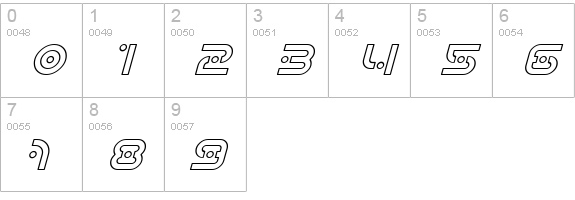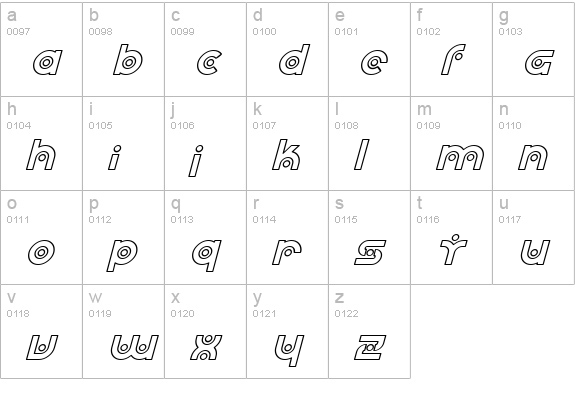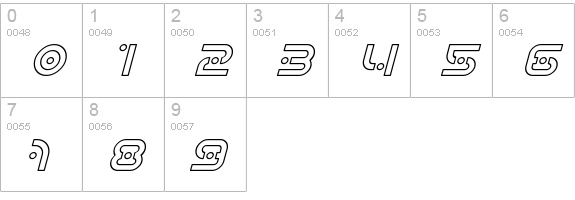
SF Planetary Orbiter Outline Italic Font Details
SF Planetary Orbiter Outline Italic is a distinctive, italic variant in the SF typeface family \xE2\x80\x94 well suited to design and typography projects.
The SF Planetary Orbiter Outline Italic font is a stunning and futuristic typeface that will transport your designs to another dimension. With its sleek and streamlined lines, this font captures the essence of space exploration and science fiction. The italicized version of the SF Planetary Orbiter Outline font adds a dynamic and energetic touch to any project. Whether you're creating eye-catching headlines, captivating logos, or captivating posters, this font will make your designs stand out from the crowd. One of the great advantages of the SF Planetary Orbiter Outline Italic font is that it is freely available to download at FontsMarket.com. This means that you can incorporate this unique and captivating font into your designs without any cost. The SF Planetary Orbiter Outline Italic font is perfect for a wide range of projects, including science fiction films and books, video games, websites, and more. Its sharp edges and futuristic style lend a sense of adventure and wonder to any design. With the SF Planetary Orbiter Outline Italic font, you have the freedom to unleash your creativity and create visually stunning designs that will leave a lasting impression. Download it for free at FontsMarket.com and take your designs to the next level.